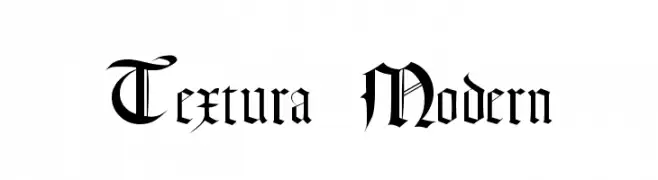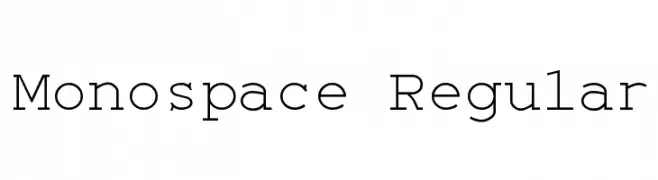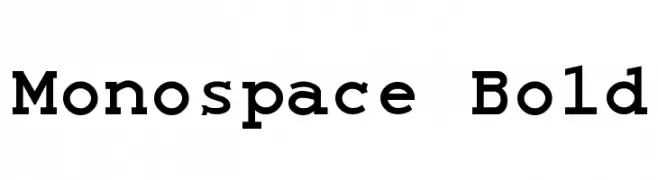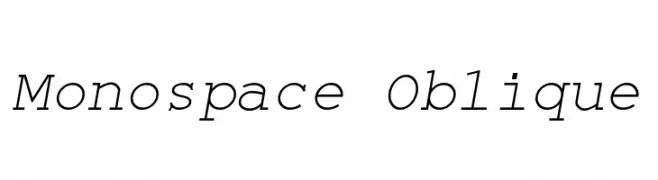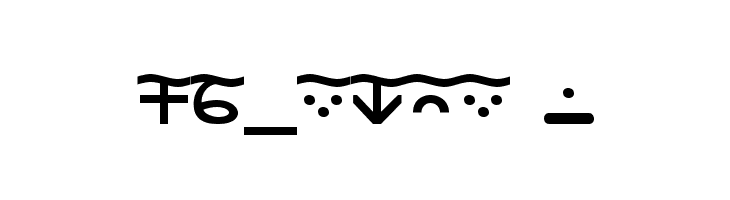
A classic blackletter font with intricate, sharp angular strokes and a medieval aesthetic.
A modern take on historical script with bold, angular strokes and artistic flair.
A whimsical, decorative font with spiral embellishments and high contrast.
A whimsical, decorative font with playful curls and swirls.
A decorative and avant-garde font with geometric shapes and fragmented lines.
A modern, geometric font with small capitals and a minimalist aesthetic.
A modern and elegant font with playful curves and dynamic strokes.
A clean and organized monospaced font ideal for coding and data presentation.
A bold, monospaced font with uniform character width and strong readability.
A dynamic monospace font with an oblique slant, offering uniformity and elegance.